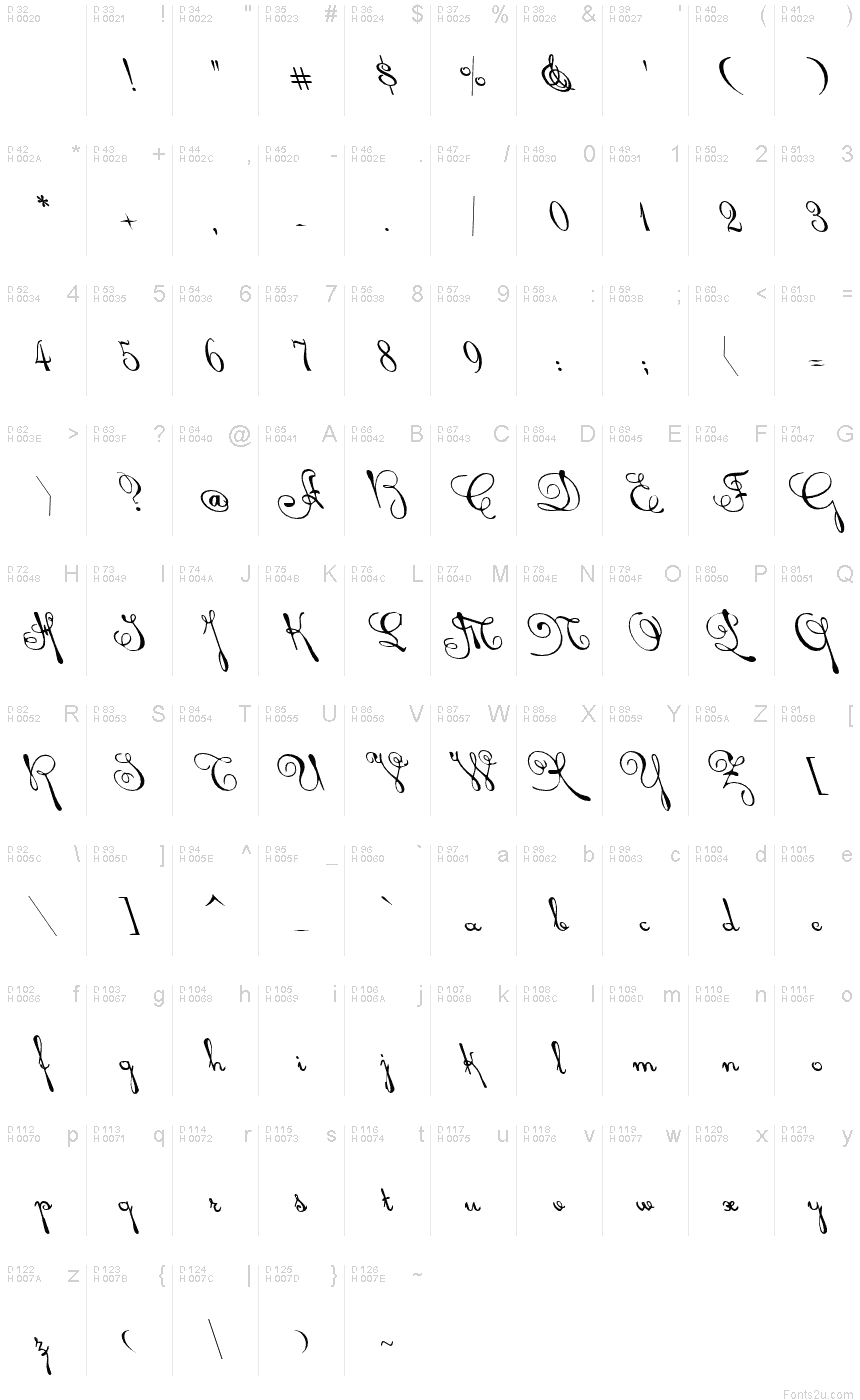
Rhalina Leftalic by Daniel Zadorozny of Iconian Fonts is a free calligraphic script with extravagant looping forms and a strongly improvised silhouette. Its strokes swing from hairline curves to broad black sweeps, with tall rises and deep extensions crossing through neighboring letters. The uneven joins and oversized curls make the lettering feel closer to expressive pen work than formal copperplate.
It can turn a fashion wordmark into a drawn flourish. Album covers, event posters, and perfume packaging use its theatrical scale and ornamental movement as part of the image.
Rhalina Leftalic